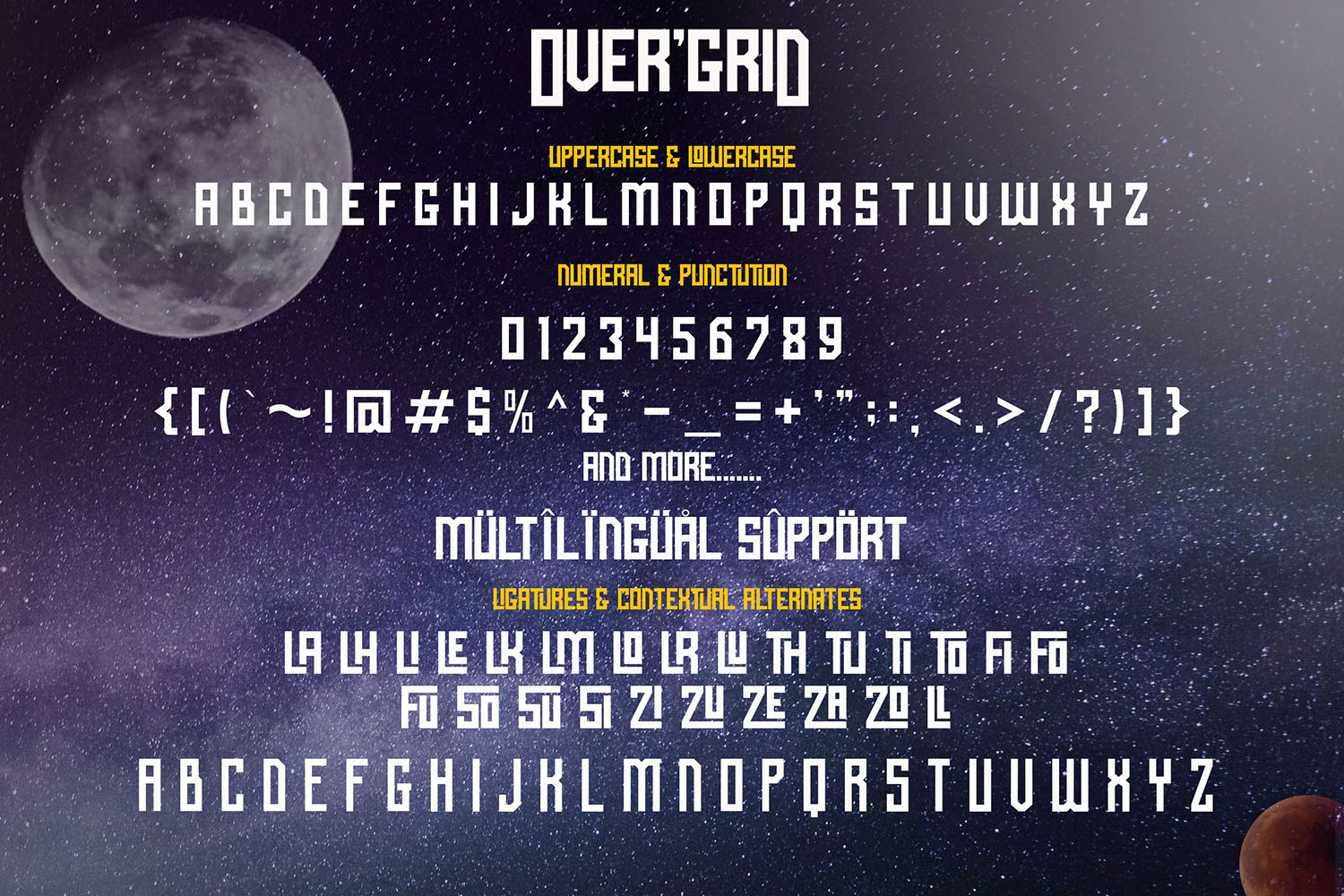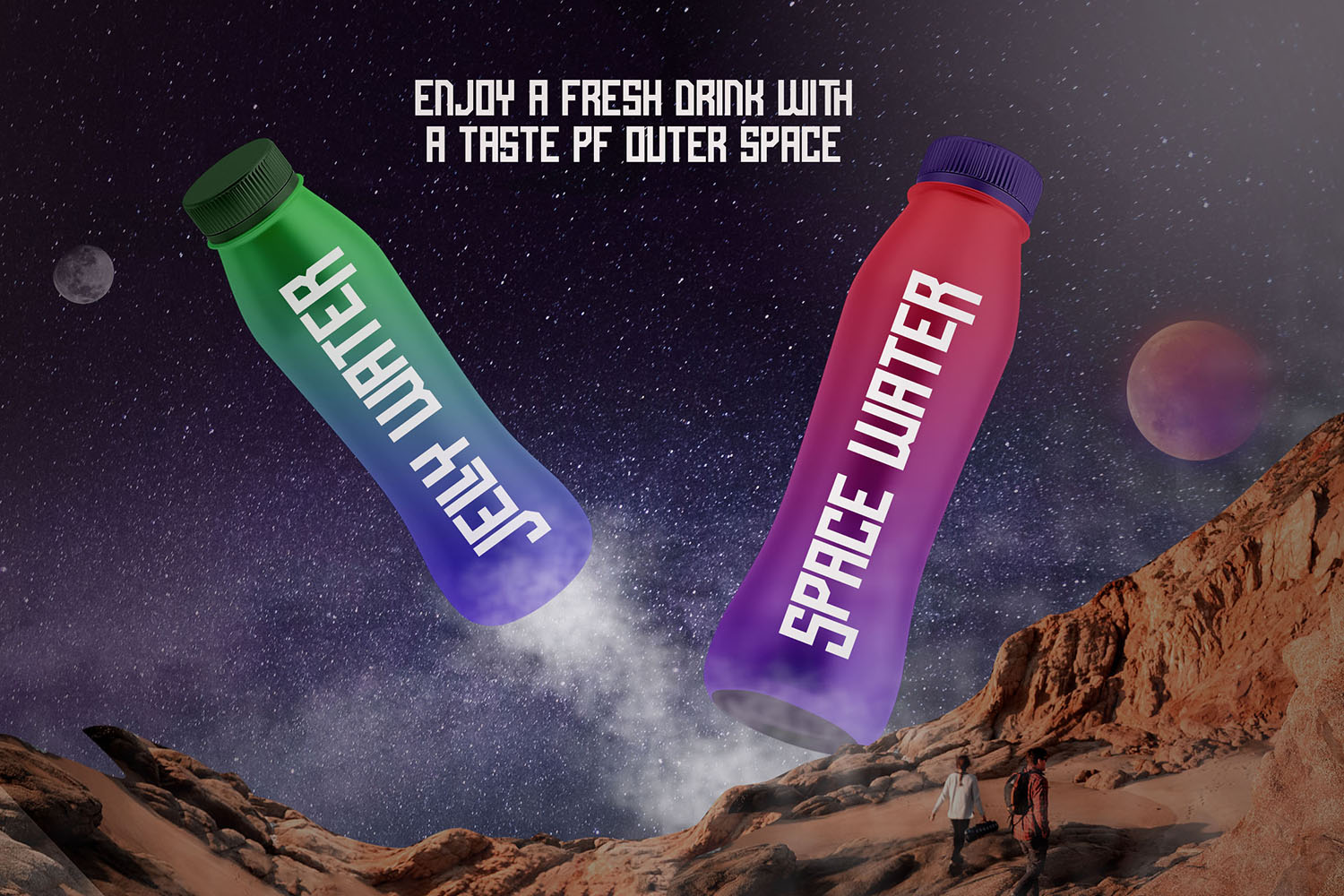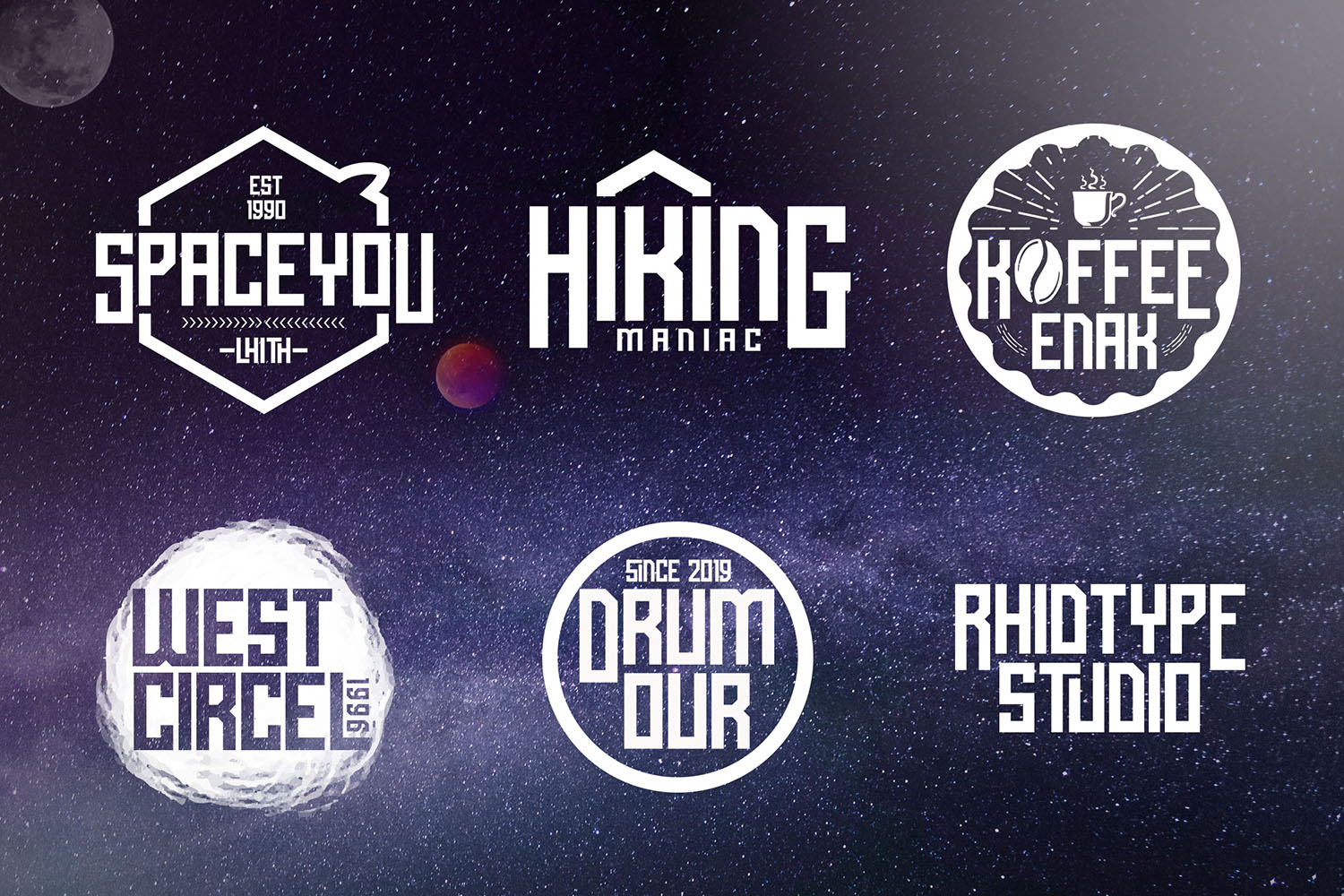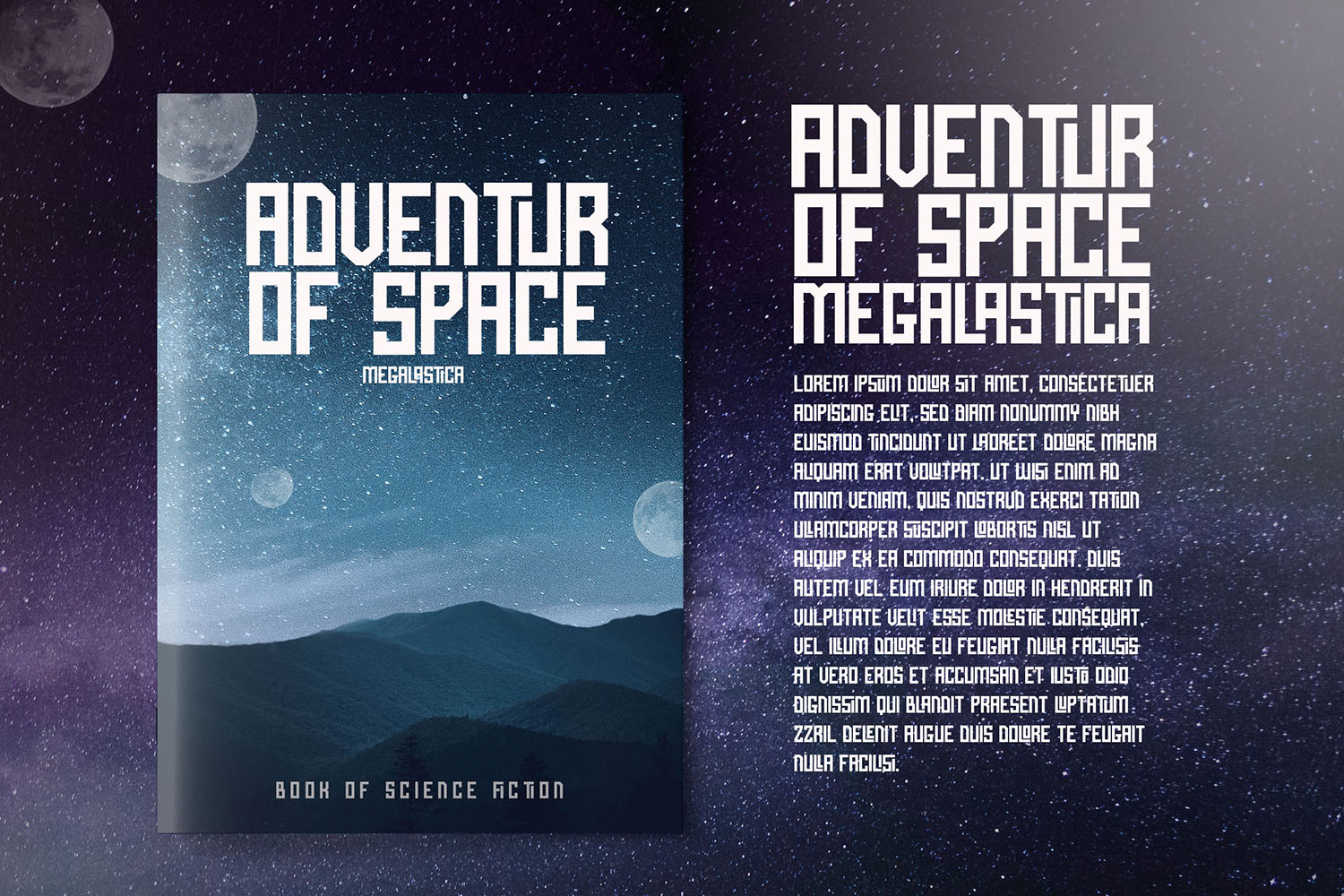
Over’grid Free Font
Over’grid Free Font – a striking and robust display font that commands attention. Its bold and thick lettering makes a powerful statement, perfect for a wide range of applications including logos, headlines, t-shirt designs, letterheads, signage, labels, news articles, posters, badges, and beyond. Whether you’re aiming for a bold and impactful look or seeking to convey strength and reliability, ‘Over’Grid’ is your versatile typographic choice. Elevate your design projects with this font’s bold presence today. This free typeface was designed by a talented RHIDTYPE STUDIO. If you like it don’t forget to check out the full version.